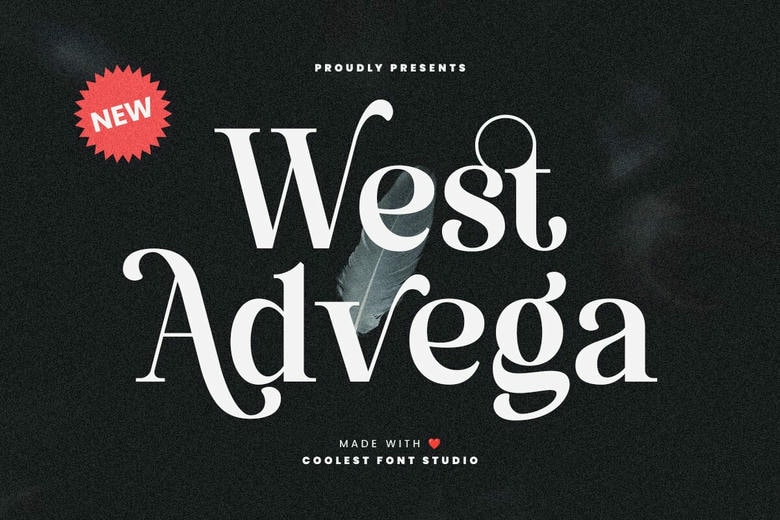
West Advega Font
West Advega is an advanced serif typeface that harmoniously incorporates modern design with traditional design features. This typeface is designed with great attention to detail and can be used by designers who want to add some elegance and versatility to their projects.
West Advega Serif Font